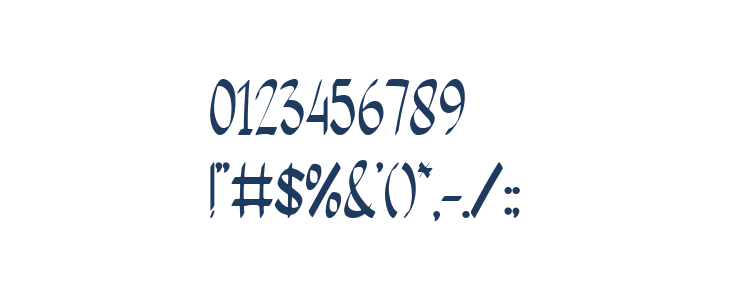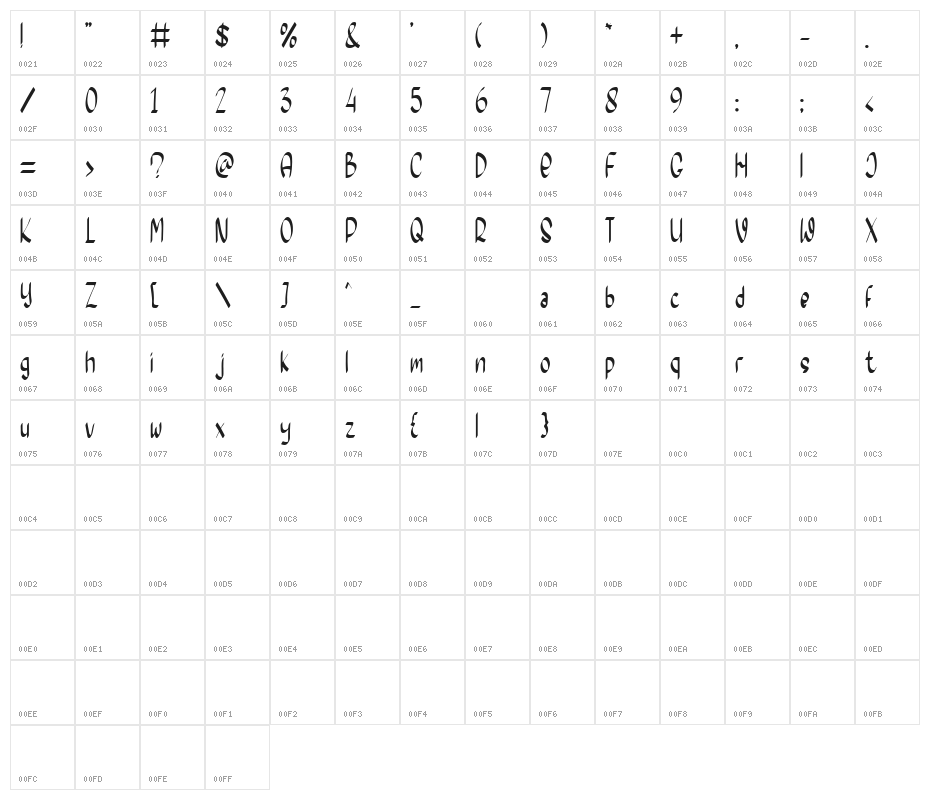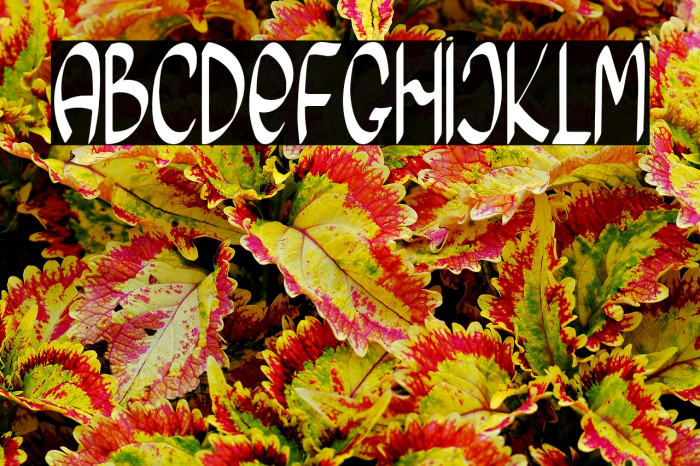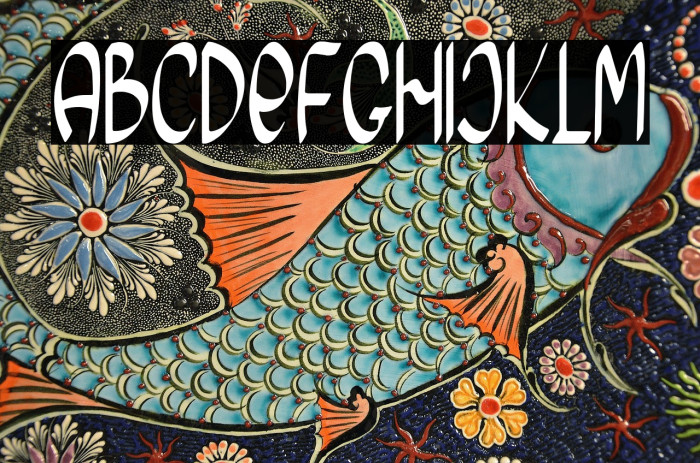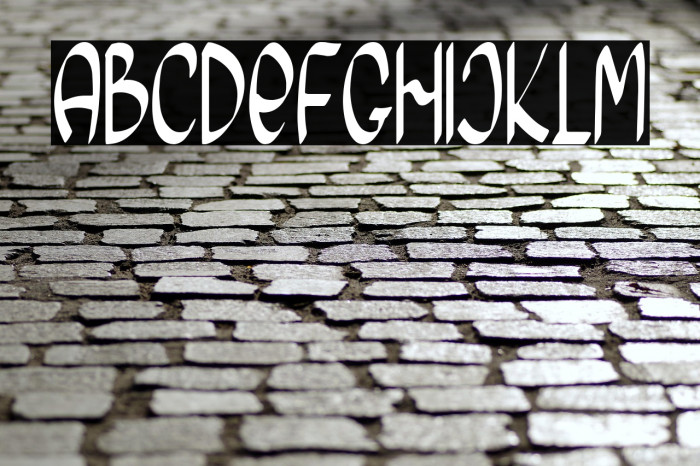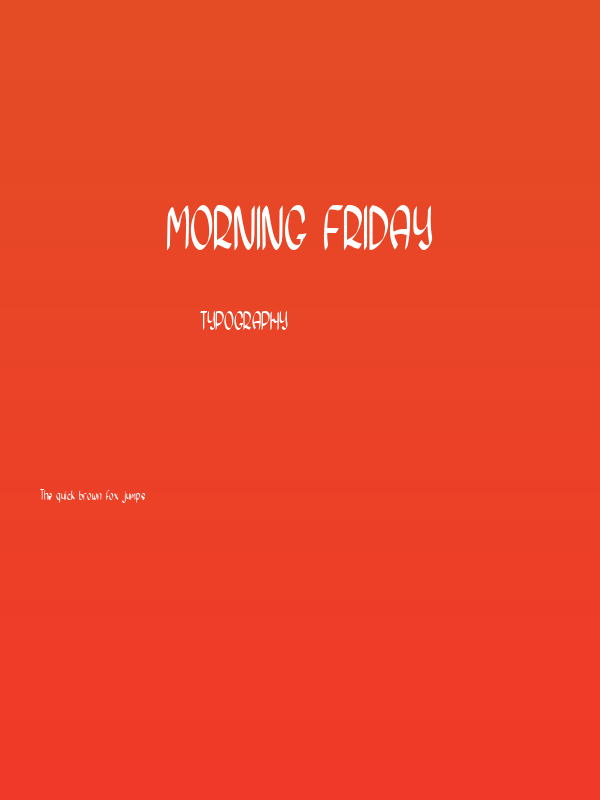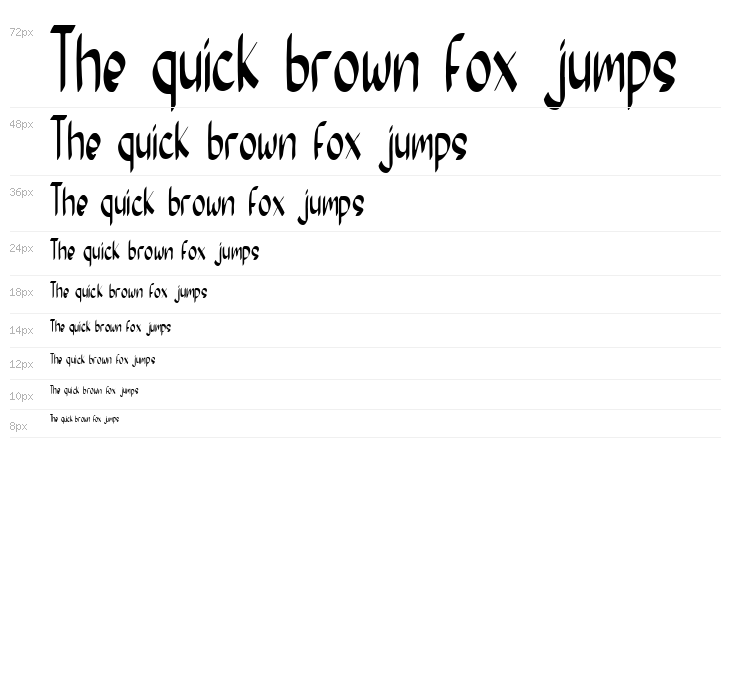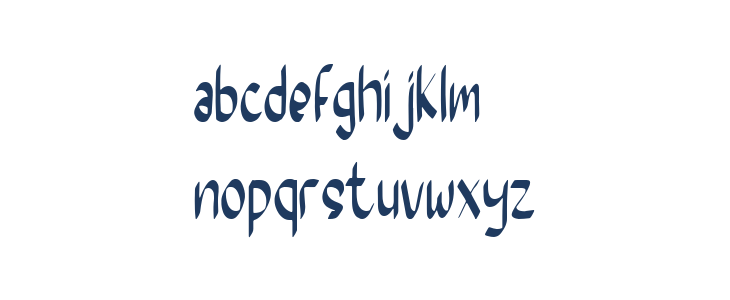
Morning Friday Font
Morning Friday Description
This font features a playful and dynamic style with a handwritten appearance. The characters are slightly slanted, giving a sense of motion and energy. The strokes are varied in thickness, adding a lively and informal touch. The uppercase letters are bold and prominent, while the lowercase letters maintain a consistent flow. The numerals are distinct and easy to read, complementing the overall whimsical aesthetic. Special characters are creatively designed, maintaining the font's unique personality.